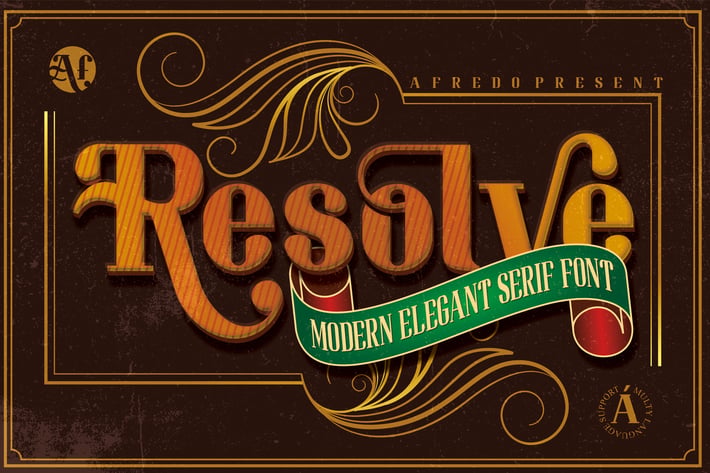
Resolve Modern Serif Font
Introducing, Resolve Modern Elegant Serif Font for display in a bigger size, OpenType features with Stylistic Alternates that allows you to mix and match pairs of letters to fit your design, and also a shadow this font look stylist.